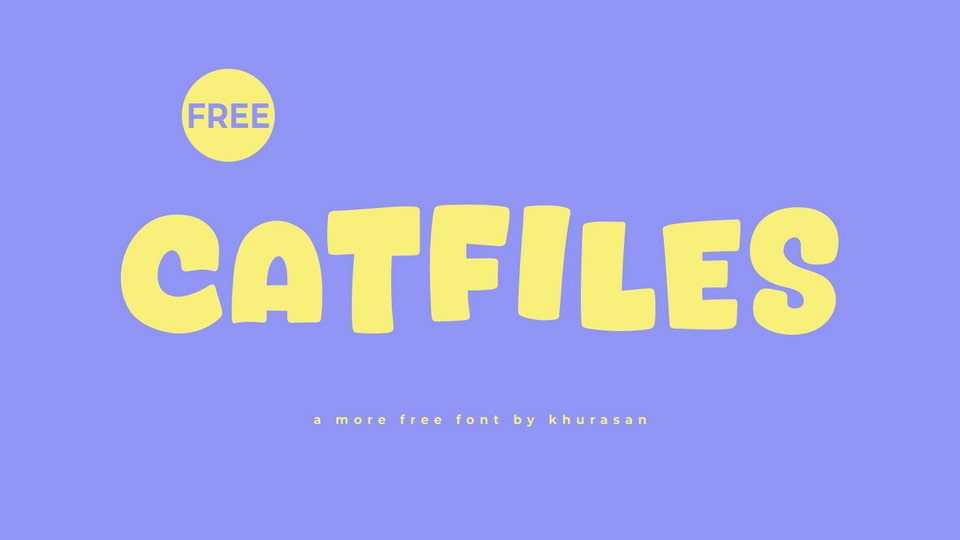
Download Catfiles font, a bold and playful hand-lettered typeface that brings a sense of whimsy and energy to your designs. Catfiles font is crafted with exaggerated proportions and bouncy letterforms, capturing the dynamic spirit of classic cartoons.